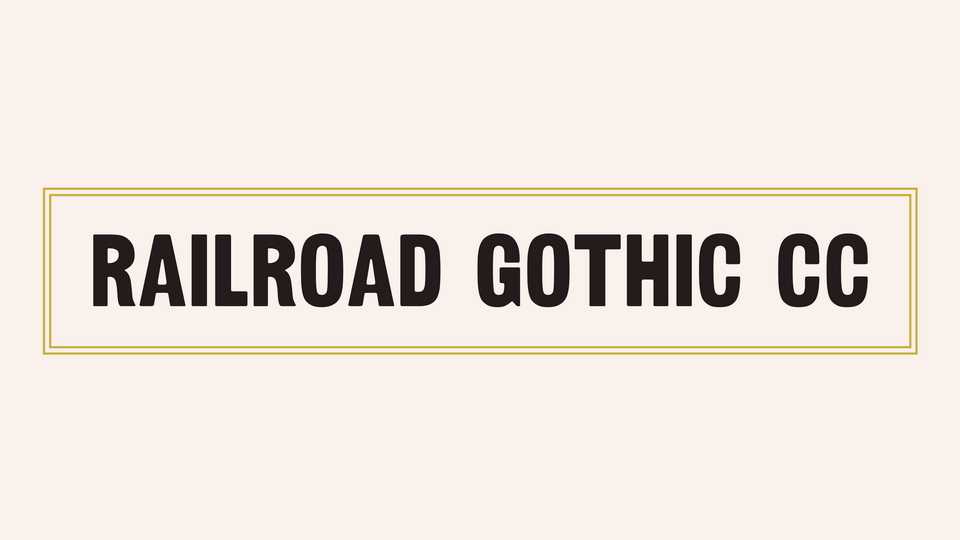
Download Railroad Gothic CC font, a display sans serif, a revival of Railroad Gothic typeface. It’s a big, bold, and often ugly condensed font offered by American Type Founders by as early as 1900.
Designer: Indestructible Type